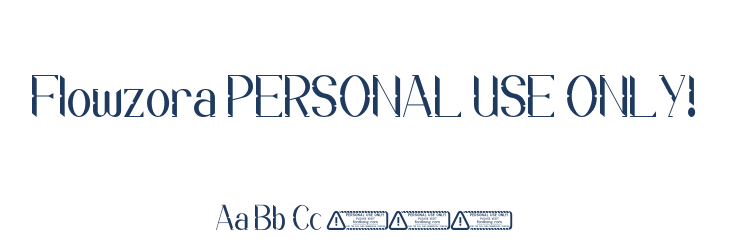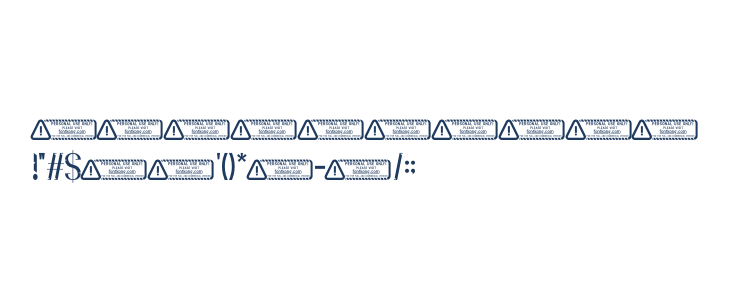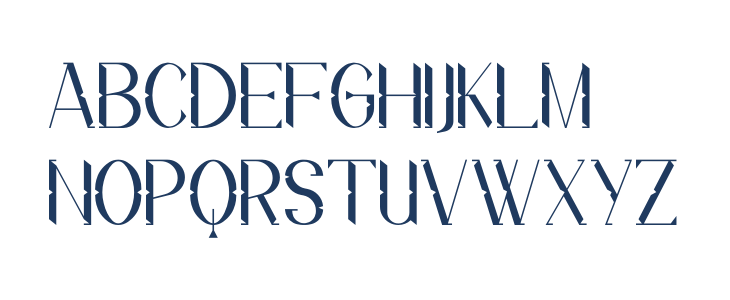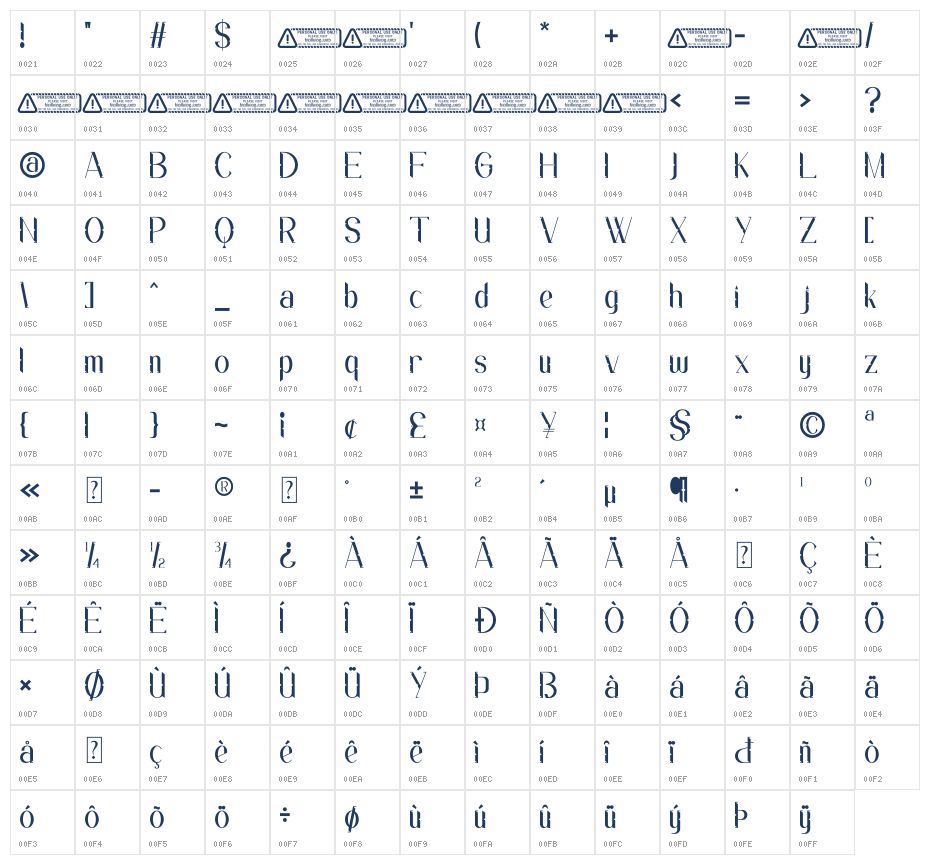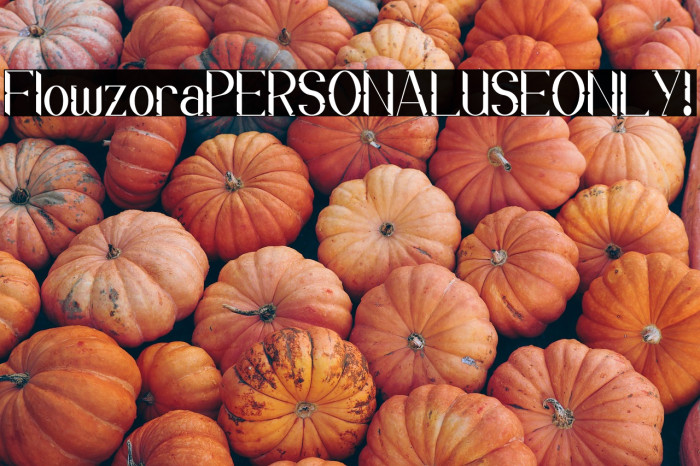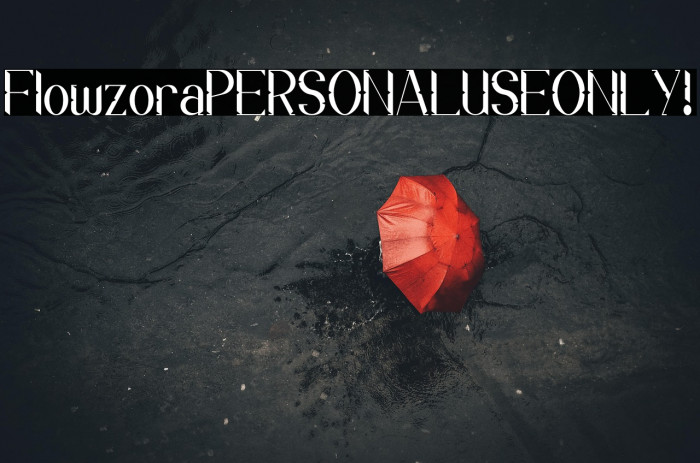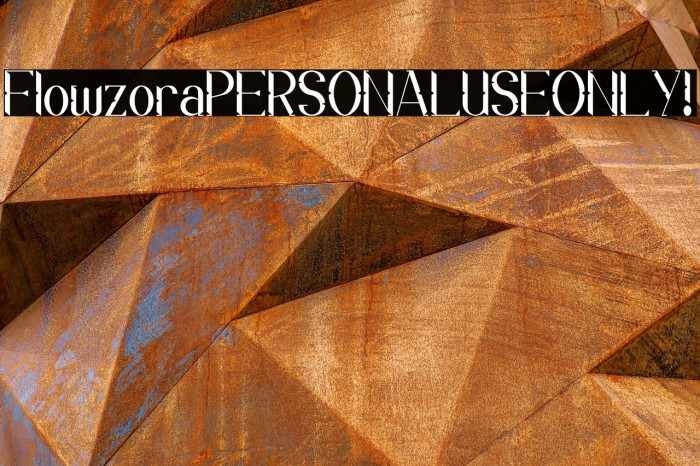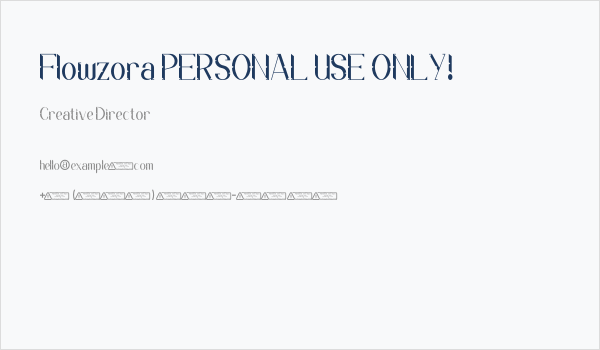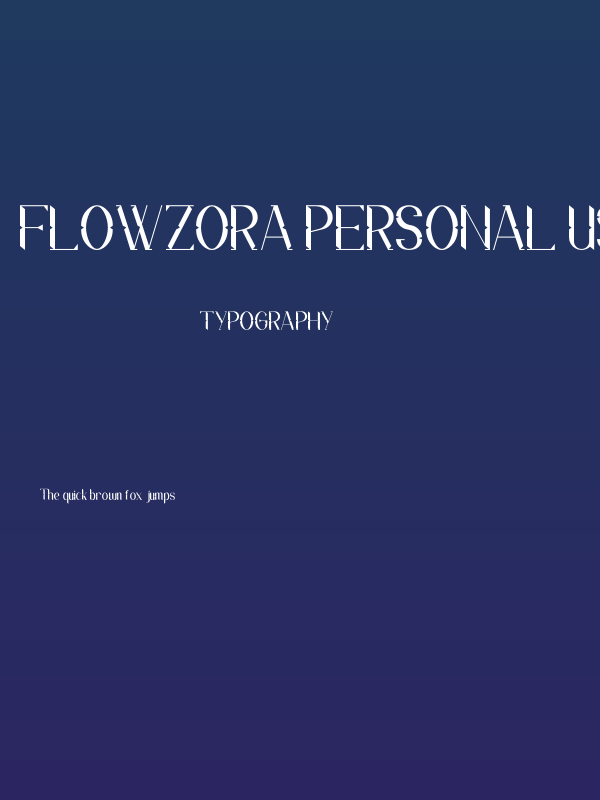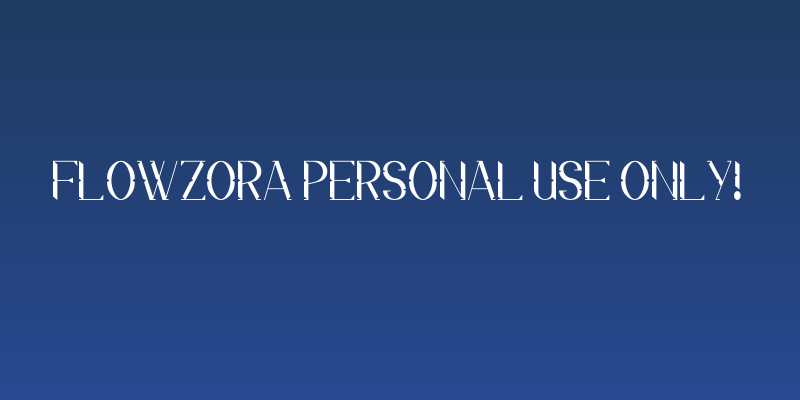
Flowzora PERSONAL USE ONLY! Font
✎ Serif
Flowzora PERSONAL USE ONLY! Description
A decorative, geometric serif font with sharp, angular features and high contrast between thick and thin strokes.
| Categories | Serif |
| Overall Style | Modern, Geometric, Decorative |
| Use Case | Headlines, Logos, Branding |